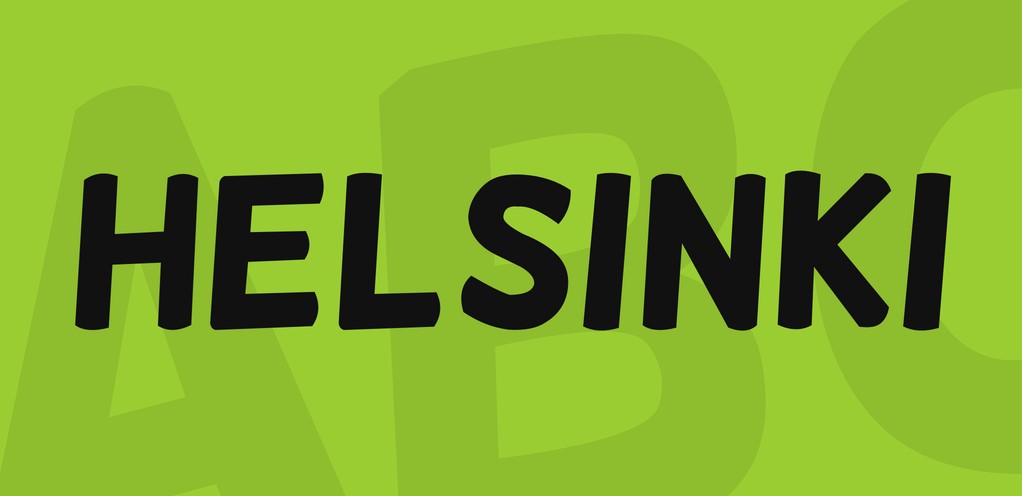
Helsinki Font
Helsinki Font is a Venezia typeface that is very much similar to the lemiesz font. This is well-known for its formidable and italic function and moreover drastically applied in industrial use. With this font’s beneficial spacing and extraordinary tool, that looks as if proxima nova font you can without a hassle creates any designs of your desire at the way to provide gold-well-known brilliant and legibility. It is significantly used for hundreds of packages noticeably for signage and others rent alike.
You may see that loads of pinnacle-notch elements that this font form can gift and it has masses of font weights available as nicely. Helsinki Font Free This font difficulty an italic, hand-drawn, formidable texture. Exquisite for any headline or titling competencies. This font is likewise regarded because of the varsity font for text.
It looks as if a thunderstorm font and aqua font. This font is a regular font with loads of many talents and loads of font weights available to offer absolutely unfastened inner this. Download This bunny funny playful font in developing a photograph, price fashions, and in every precise designing carry out in which covered inside the rational recommendation. It became first launched and it’s far been very called a whole lot as within the meantime.
It’s miles similar to artwork present-day significantly utilized by artists to many format layouts.